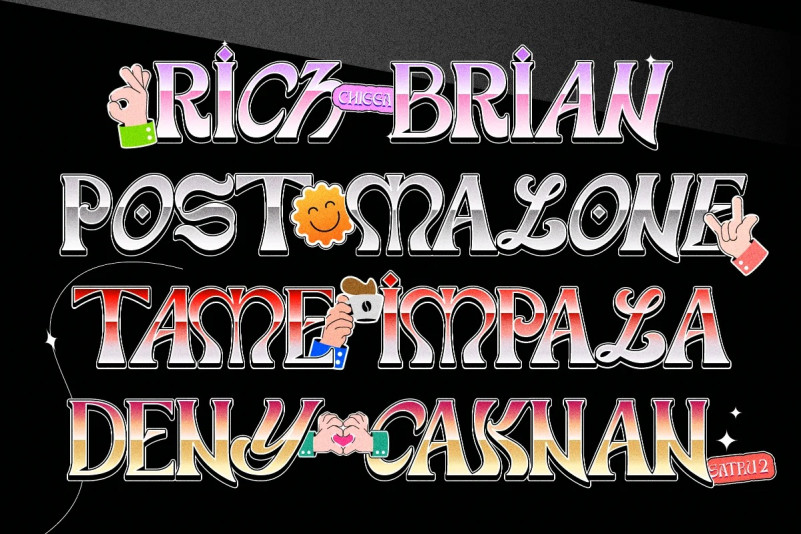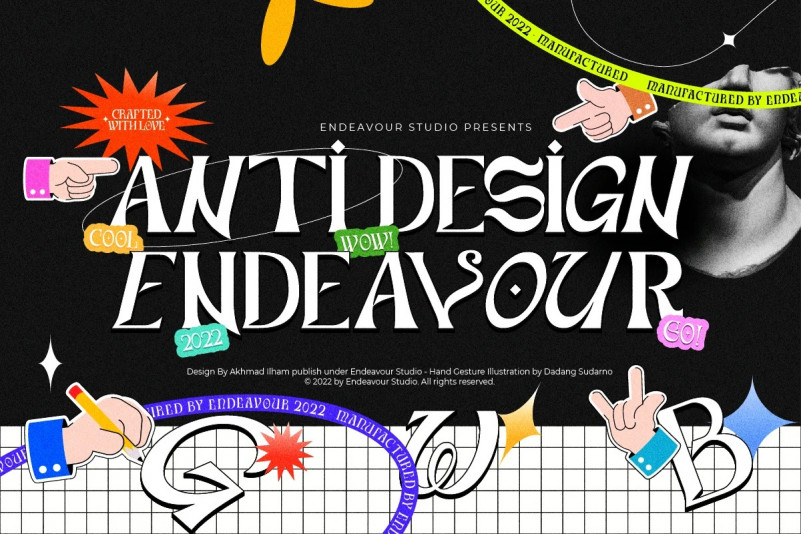
Anti Design Endeavour Font
Anti Design Display Font is a bold and incredibly interesting display font that will impress with its stylish features. Use it for product packaging, branding, or other projects that need bold and daring typography!
The manifestation of how we define balance is Anti Design. We believe that balance should not be fixed, having the same size or worth. Balance can be achieved through contrast, colour, or anything else, and it can also be asymmetrical. By combining several types of fonts, such as italic, serif, script, and vintage, we may establish an asymmetrical balance while maintaining harmony.